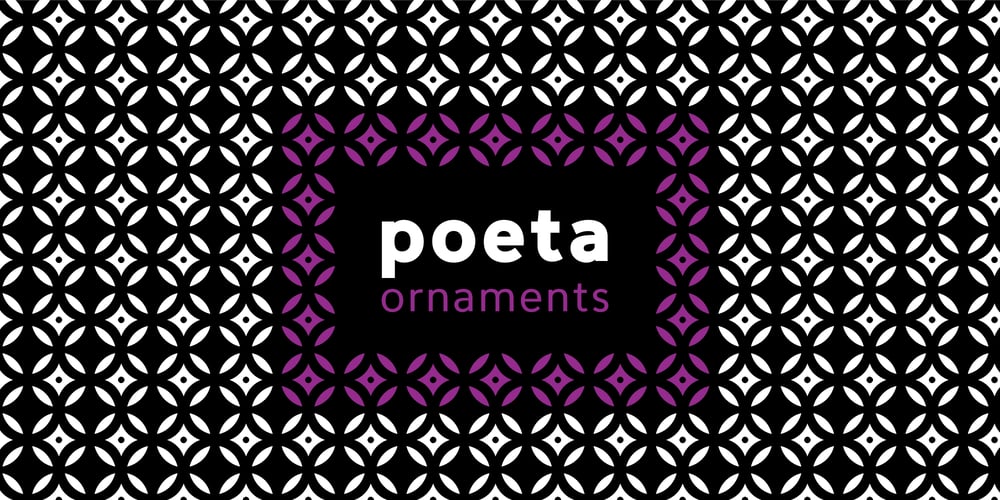
Poeta Font Family was designed by Donald Tarallo and published by Tarallo Design. Poeta contains 1 styles and family package options. Poeta is an ornamental font for making patterns and text decoration. It contains floral and nature motifs. The symbols are versatile enough for simple decoration or festive holiday moods. Designers can use Poeta to make unique lines, fields, borders, or ornamentation within or around text. Try replacing a simple straight line with repeated symbols. Make a background to add visual interest to a design. Use the forms to decorate a chapter title or to mark the end of a magazine article. Replace a letter in a word with a symbol to create a memorable statement. Poeta will add visual poetry to any design project.This font began with sketches of patterns seen in ceramic tiles around Sicily. It is named Poeta because Sicily is an island rich in poetry traditions.Using this font is simple. Install it and type. Symbols will appear instead of letters. Choose the precise symbols through a software’s glyph palette. Use the type/character menu controls to vary the spacing and density of patterns.